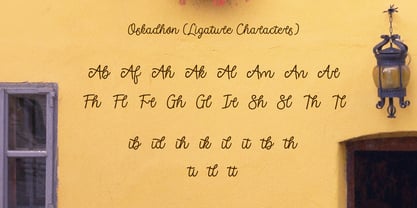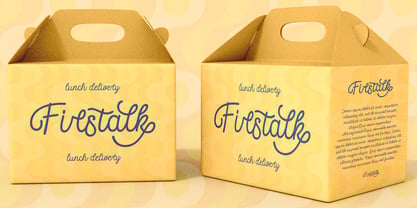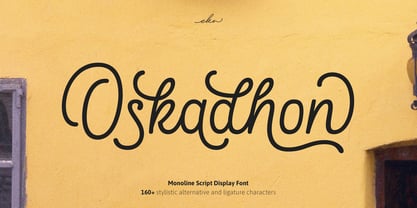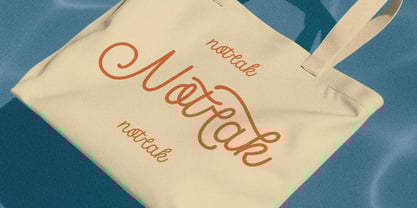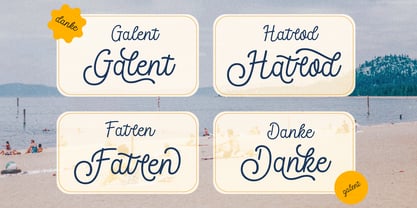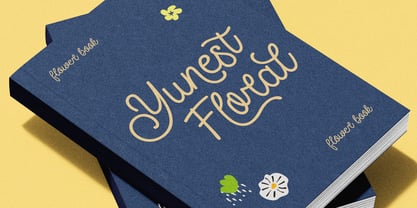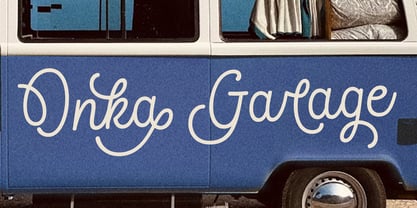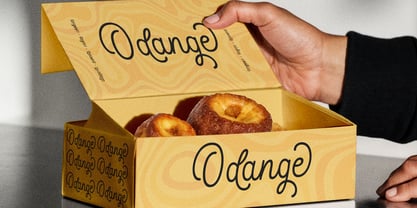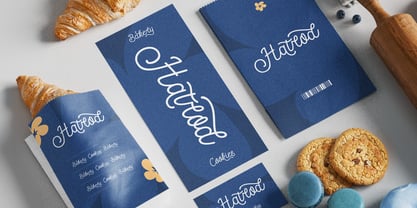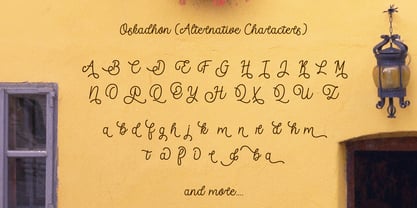
Oskadhon
by Ekahermawan
The Oskadhon Font Family was designed by Putu Eka Hermawan and published by Ekahermawan. Oskadhon contains 1 styles. More about this family
Meet Oskadhon – a smooth monoline script display font that blends elegance with a handcrafted touch. Its flowing curves and playful swashes make it the perfect choice for designs that want to feel beauty, stylish, and memorable. With over 160+ alternates and ligatures, Oskadhon gives you endless creative freedom to design text that looks truly custom-made. Whether you need a bold statement logo, romantic wedding stationery, eye-catching product packaging, or scroll-stopping social media graphics, this font adapts beautifully to every project. Oskadhon also comes with multilingual support, so your designs can connect with audiences all around the world. Ideal For Logos & Branding, Wedding Invitations & Greeting Cards, Product Packaging & Labels, Quotes & Posters and Social Media Content & Marketing Materials. Bring sophistication to your work with Oskadhon – a script font that makes every word look like a work of art.
Designers: Putu Eka Hermawan
Foundry: Ekahermawan